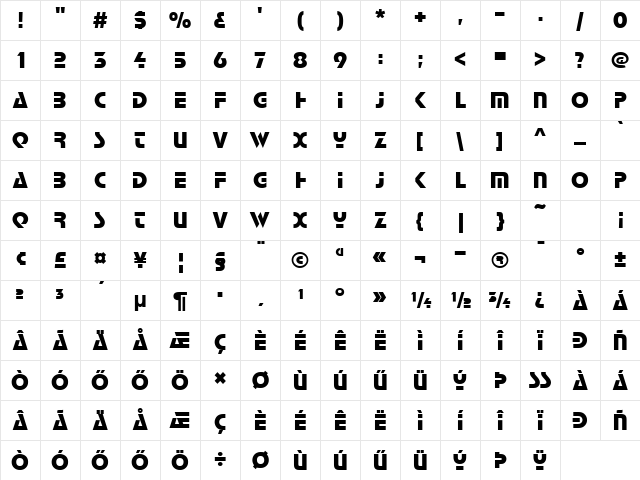
H_StopD Regular
Design Context for H_StopD
H_StopD is a composed and adaptable typeface that performs quietly and consistently across a wide range of design contexts.